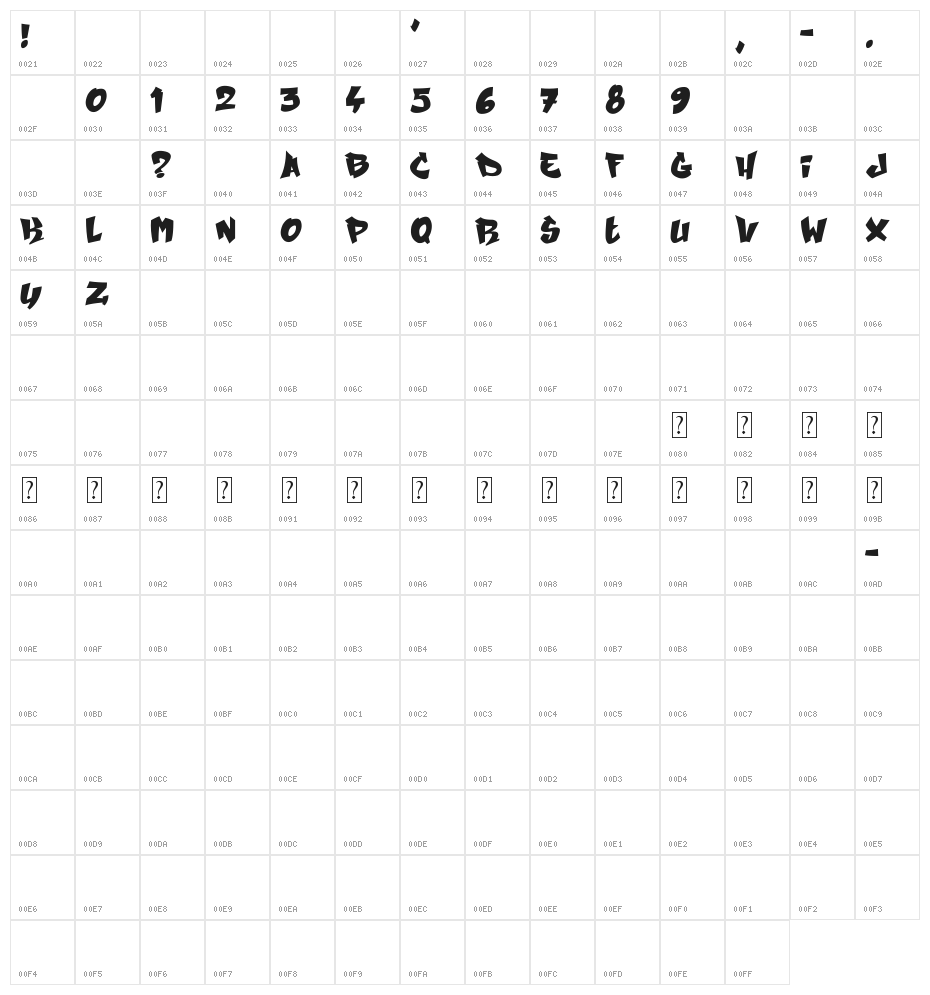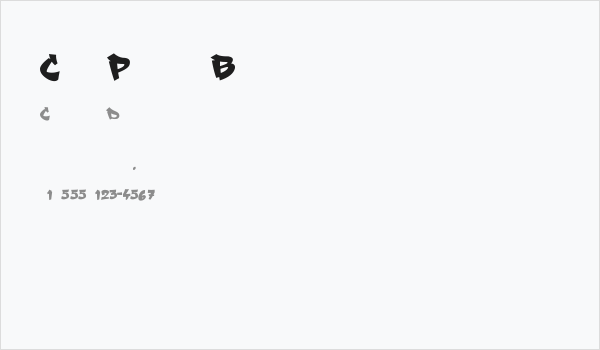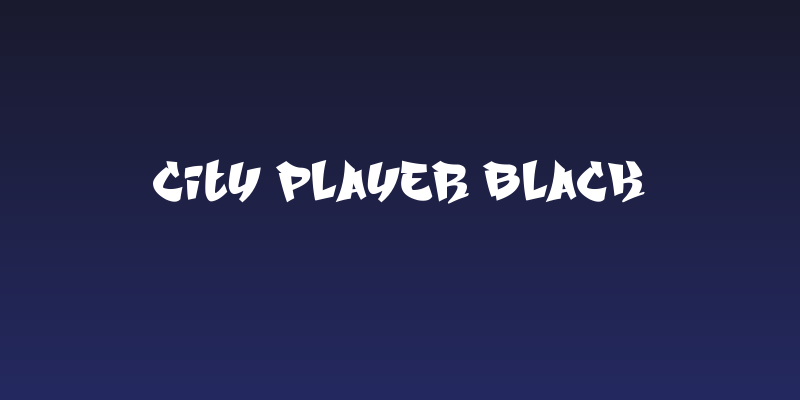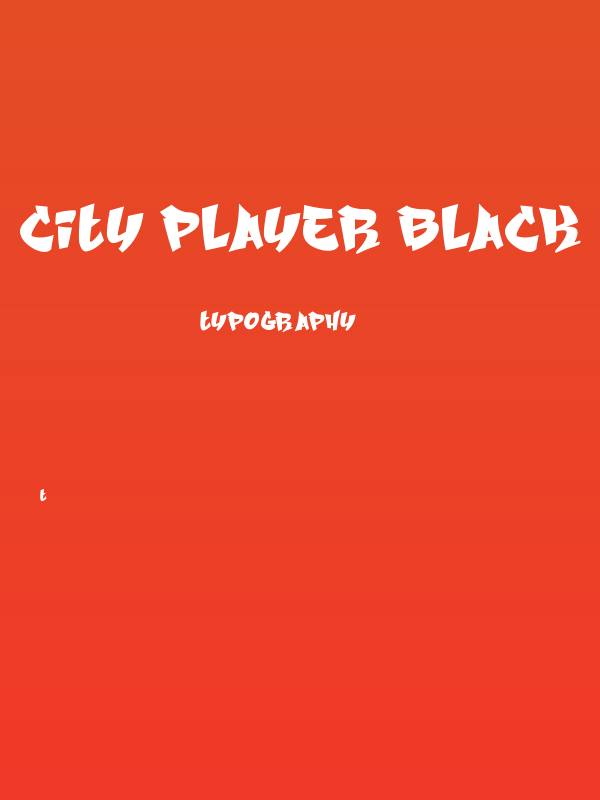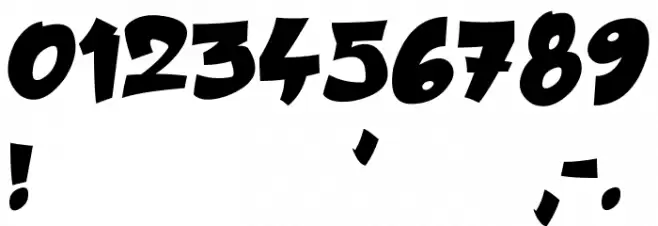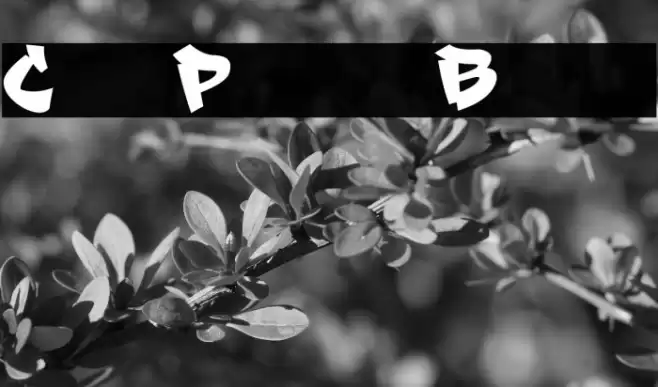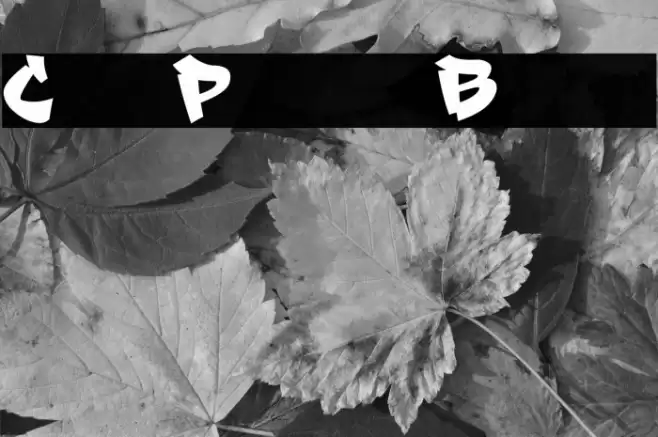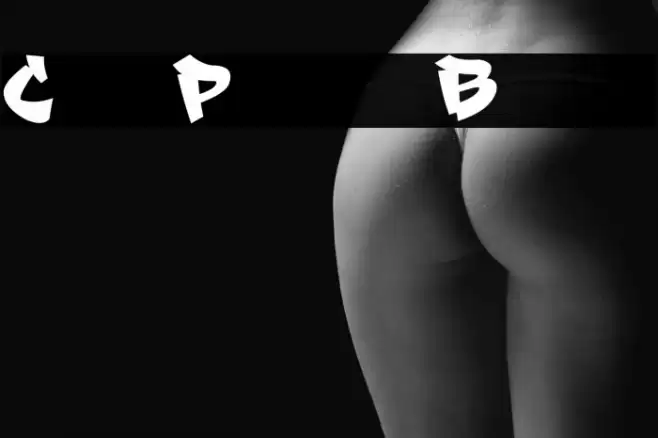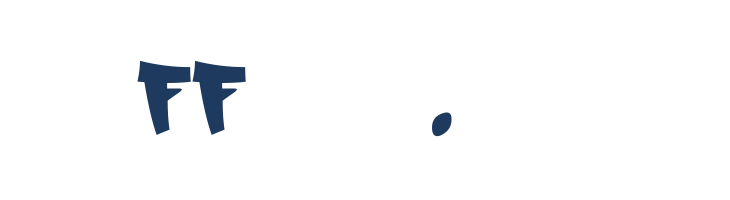
City Player Black Font
This font features a bold and dynamic style with a playful, graffiti-like appearance. The characters are thick and robust, with sharp angles and exaggerated curves that give it a sense of movement and energy. The uppercase letters are particularly striking, with a strong presence that demands attention. The numbers and punctuation marks maintain the same boldness, ensuring consistency throughout the font. This font is designed to stand out, making it ideal for projects that require a strong visual impact.
| Overall Style | Modern, Urban |
| Use Case | Headlines, Posters, Logos |
| Proposed Projects | Ideal for street art designs, urban-themed posters, music album covers, and any project needing a bold, energetic typeface. |